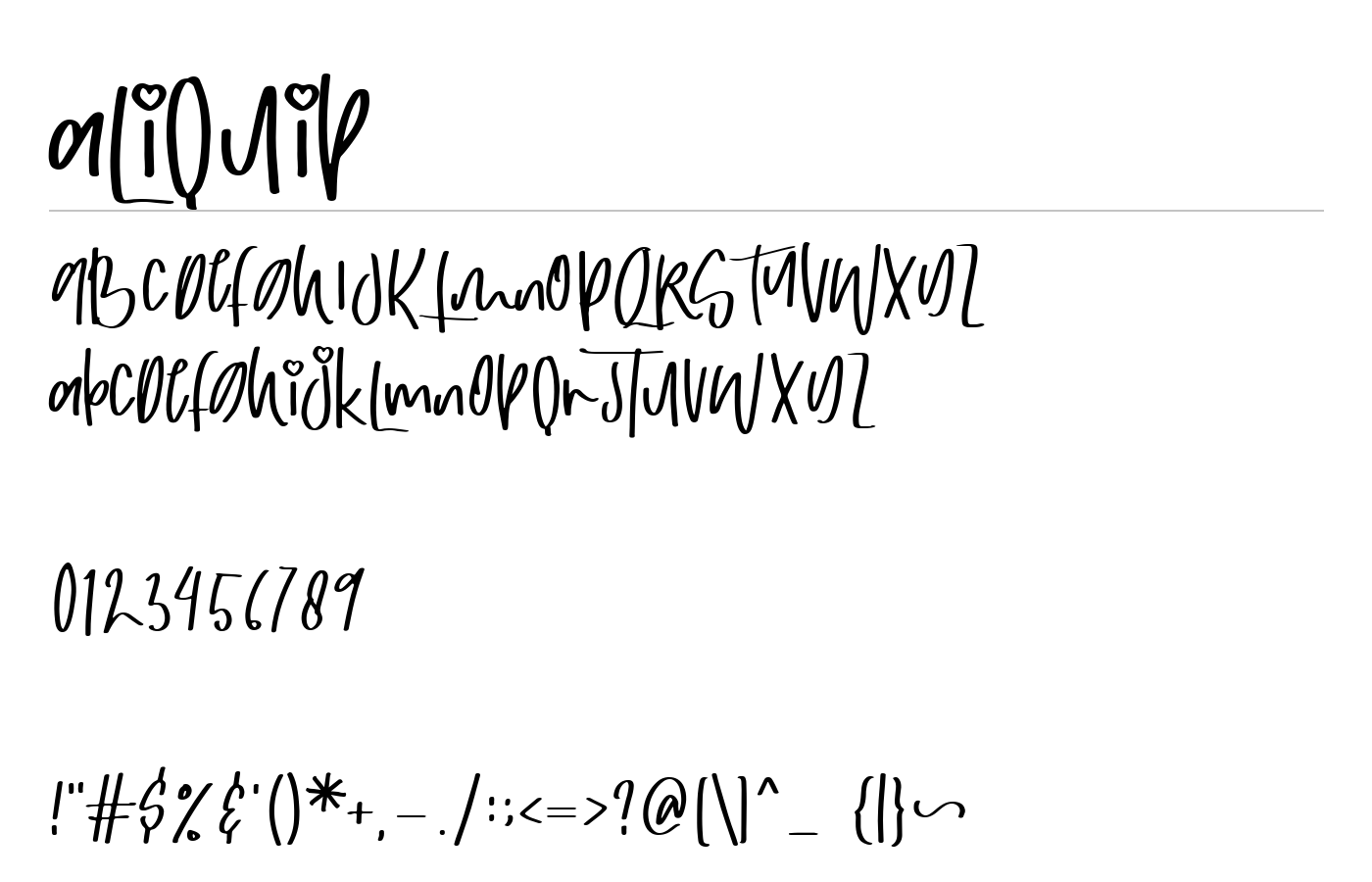
Aliquip is a playful, handwritten script font with a tall, narrow structure and a casual, slightly whimsical feel. Its thin, irregular strokes and heart-shaped dots give it a friendly and approachable personality, making it perfect for creative projects, greeting cards, or lifestyle branding that seeks a personal, informal touch. This font works well in headlines or decorative uses where a lively and charming aesthetic is desired.
aliquip Font
About aliquip Font